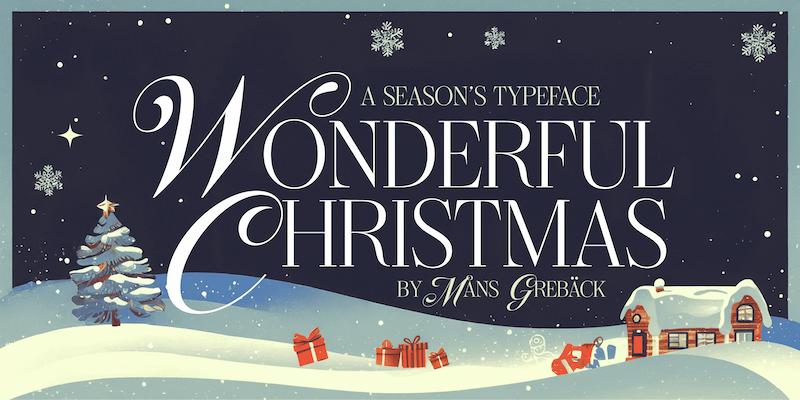
NOTE: This font is for PERSONAL USE ONLY! To purchase a commercial license, visit: https://www.mansgreback.com/wonderful-christmas Wonderful Christmas is a luxurious & festive typeface that blends script and serif styles. The uppercase letters feature ornate, flowing script capitals, while the lowercase set offers refined serif capitals. A sophisticated and formal Season's typeface. For questions, please visit www.mansgreback.com/faq |